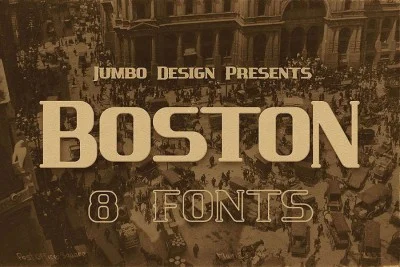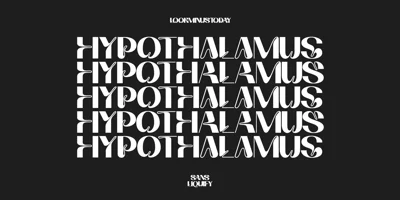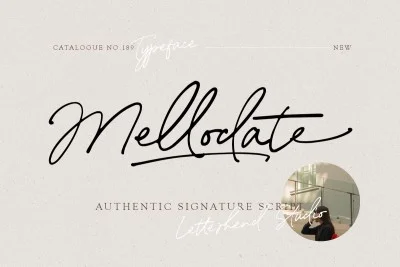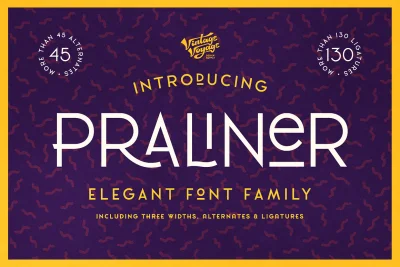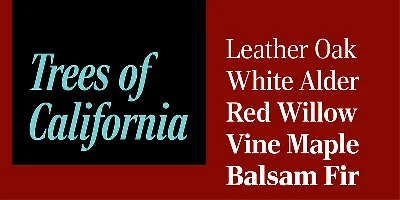
Creative Market Font
Creative Market Font: Your Gateway to Premium Typography
In today's digital landscape, typography plays a crucial role in establishing brand identity and creating memorable visual experiences. Whether you're a graphic designer, web developer, or business owner, the right font can make or break your project's success. Creative Market has emerged as one of the leading platforms for premium fonts, offering designers access to thousands of high-quality typefaces from talented creators worldwide.
What is Creative Market?
Creative Market is a digital marketplace that connects independent designers with businesses and creatives seeking unique design assets. Founded in 2012, the platform has grown to become a go-to destination for fonts, graphics, templates, and other design resources. What sets Creative Market apart is its focus on quality over quantity, featuring carefully curated collections from both established and emerging designers.
Why Choose Creative Market Fonts?
Creative Market fonts stand out for several reasons. First, the platform maintains strict quality standards, ensuring that every font meets professional-grade specifications. The fonts are typically OpenType format, supporting advanced typography features like ligatures, alternate characters, and extended language support.
Second, Creative Market fonts are often exclusive or limited-edition releases, meaning you're less likely to see them overused across the web. This exclusivity helps brands maintain a unique visual identity that stands out from competitors using more common typefaces.
Third, the platform offers comprehensive font families rather than just individual weights. When you purchase a font from Creative Market, you often get multiple weights, styles, and variations, providing flexibility for different design applications.
Benefits for Brand Development
Testing fonts before committing to a purchase is essential for effective brand development. Typography significantly impacts how audiences perceive your brand, influencing everything from trustworthiness to modernity. By experimenting with different Creative Market fonts, you can:
Establish Brand Personality: Different fonts convey different emotions and associations. A sleek sans-serif might suggest innovation and minimalism, while a hand-lettered script could communicate creativity and authenticity.
Ensure Readability: Not all fonts work well across different mediums and sizes. Testing allows you to verify that your chosen typeface remains legible in various applications, from business cards to billboards.
Check Technical Compatibility: Some fonts may have specific technical requirements or limitations. Testing helps identify any potential issues with web implementation, print production, or software compatibility.
Evaluate Versatility: A good brand font should work across multiple applications. Testing different weights and styles helps ensure your chosen typeface can handle everything from headlines to body text.
How to Effectively Test Creative Market Fonts
When testing Creative Market fonts for your brand, consider these strategies:
Start by defining your brand's personality and target audience. Are you aiming for professional and corporate, or creative and playful? Understanding your brand's character will help narrow down appropriate font categories.
Create mockups using real content rather than placeholder text. See how the font performs with your actual brand name, taglines, and typical content. This practical approach reveals how the typeface will function in real-world applications.
Test across different devices and platforms. Fonts may render differently on various screens and operating systems. Ensure your chosen typeface maintains its intended appearance across all relevant platforms.
Whether you're launching a new brand or refreshing an existing one, Creative Market fonts provide the quality and uniqueness needed to stand out in today's competitive marketplace. Take the time to explore, test, and experiment – your brand's perfect typeface is waiting to be discovered.